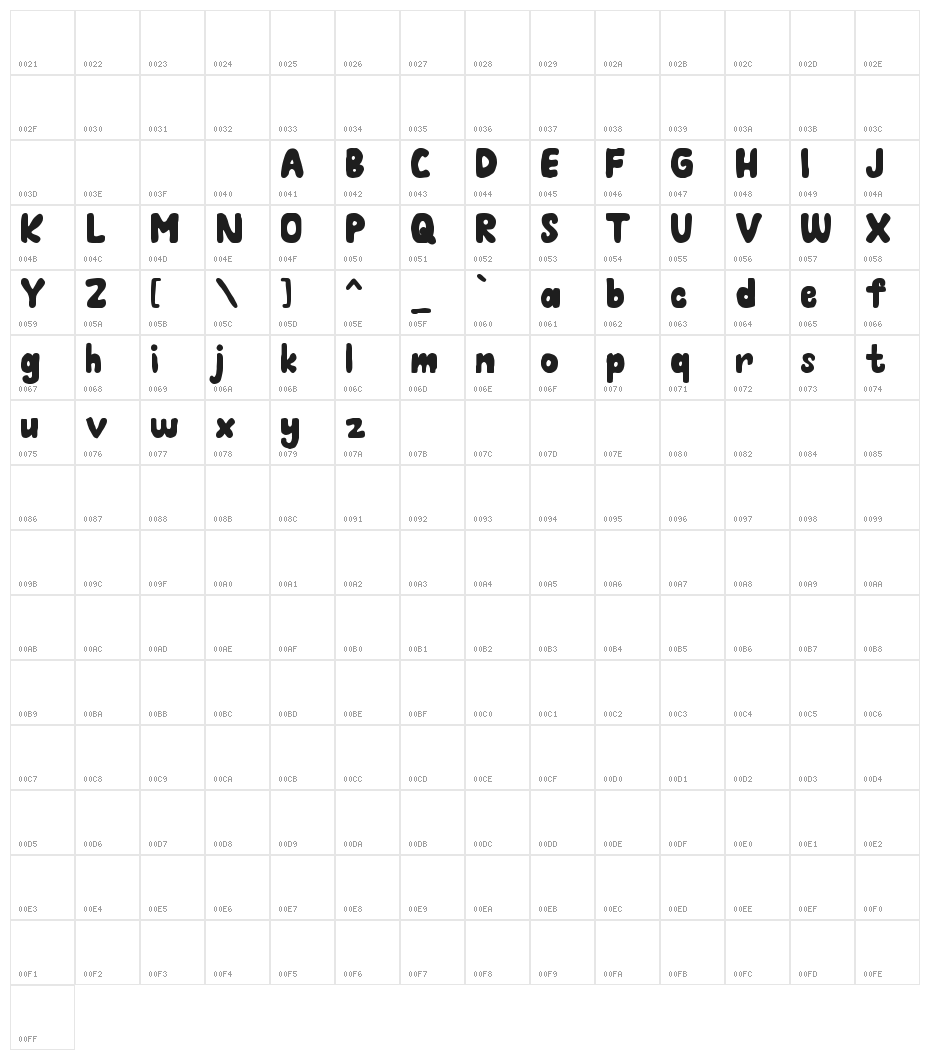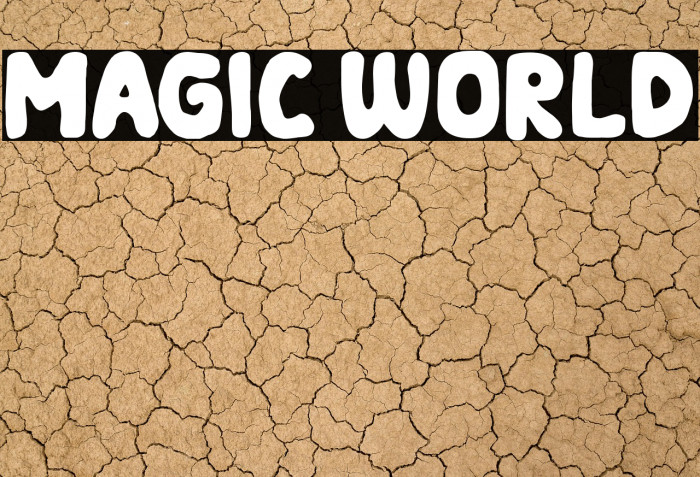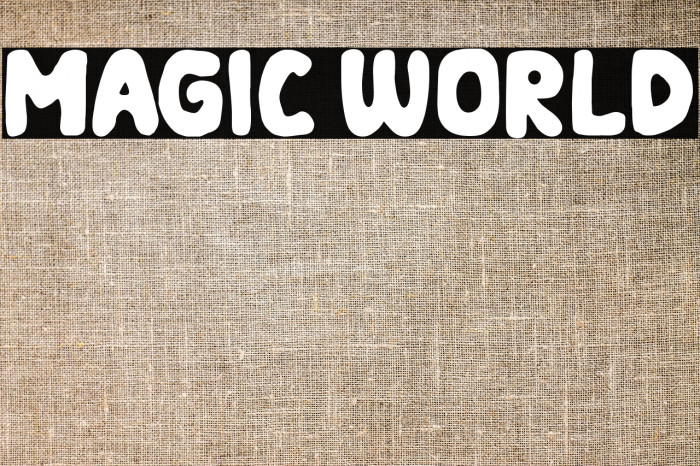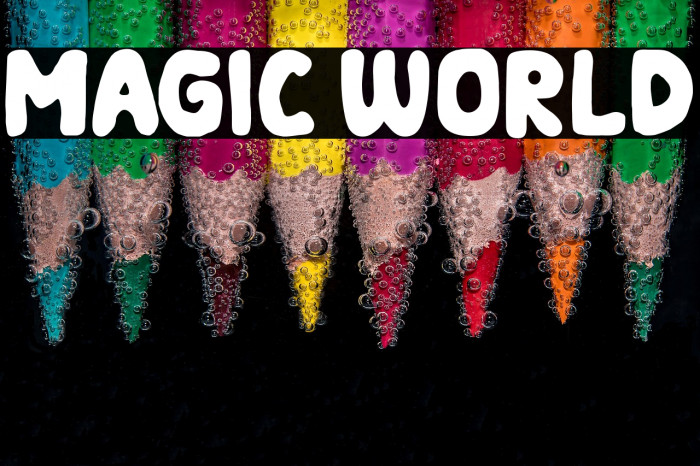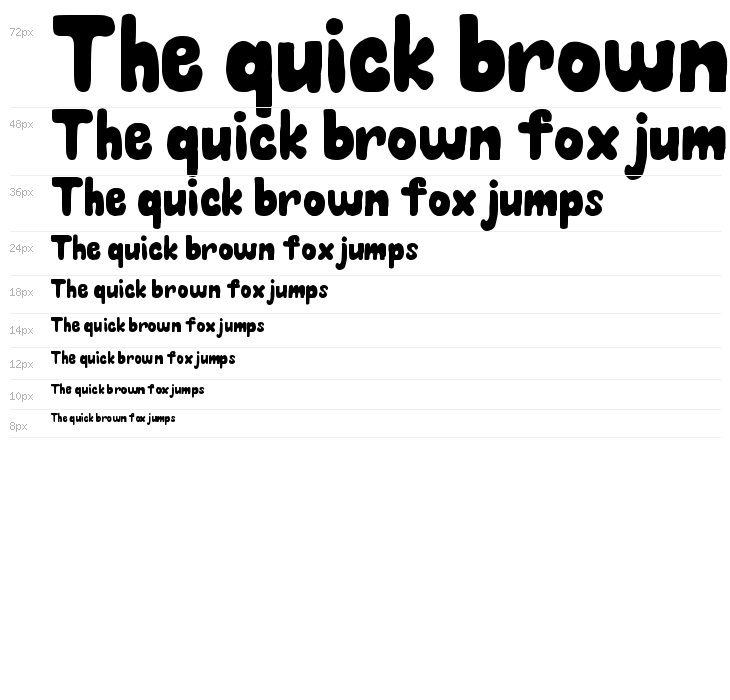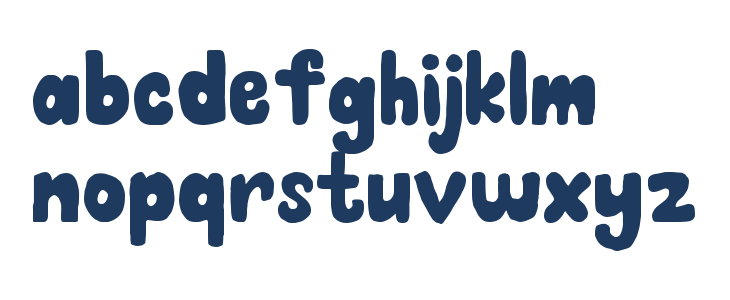
MAGIC WORLD Font
✎ Cartoon
| Stile generale | Playful, Whimsical |
| Progetti proposti | Perfect for children's books, playful branding, posters, and greeting cards. |